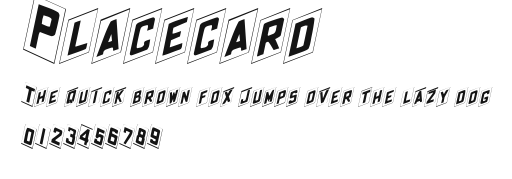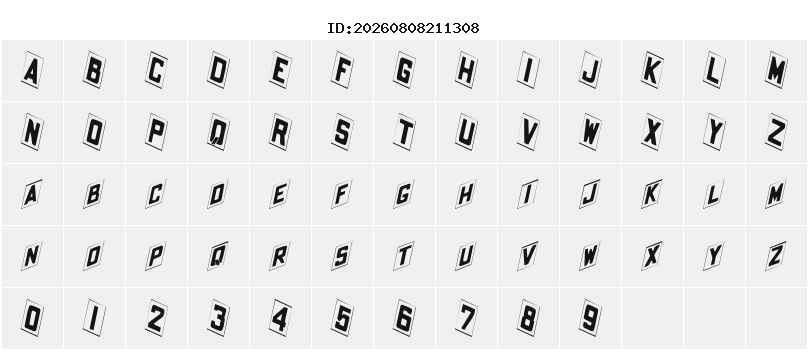
• Font Name: Placecard
• Full Font Name: Placecard Italic
About Placecard.ttf
Placecard.ttf is a modern, elegant sans-serif font designed for ultimate readability and visual harmony. Perfect for branding, headlines, web design, and print materials.